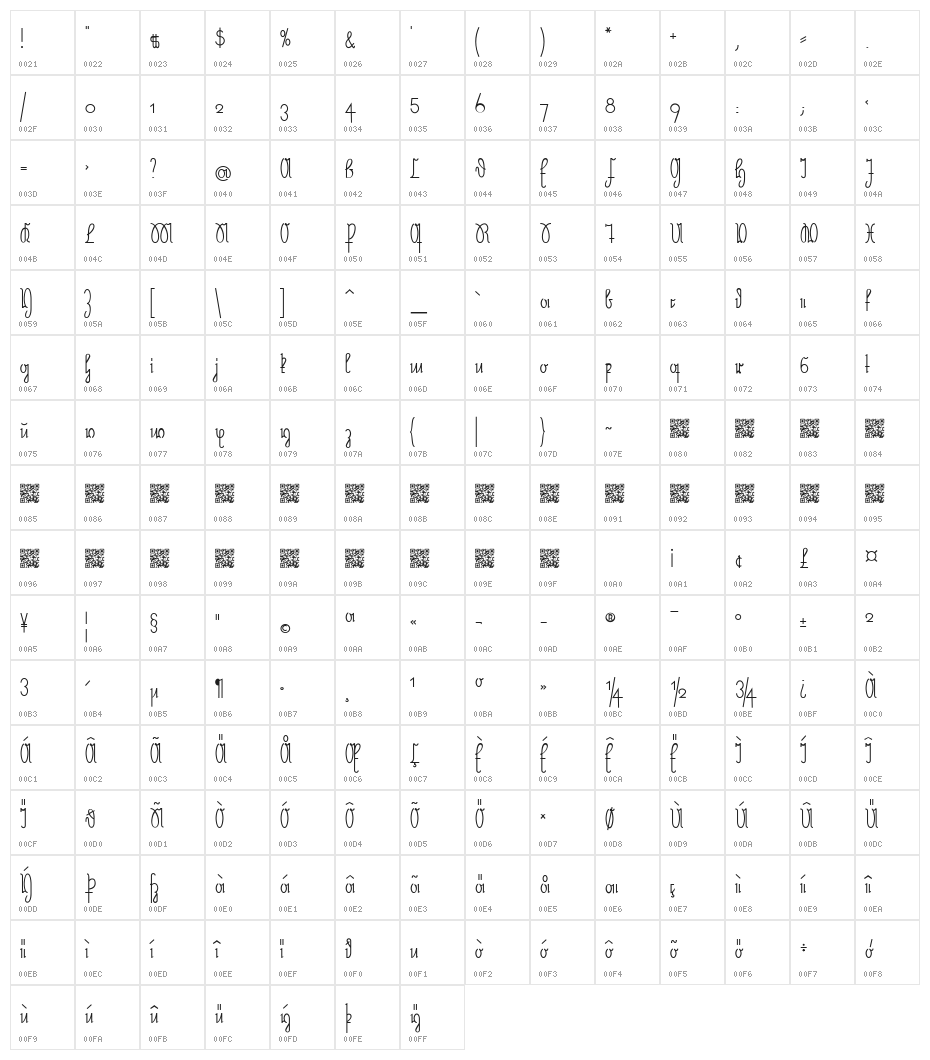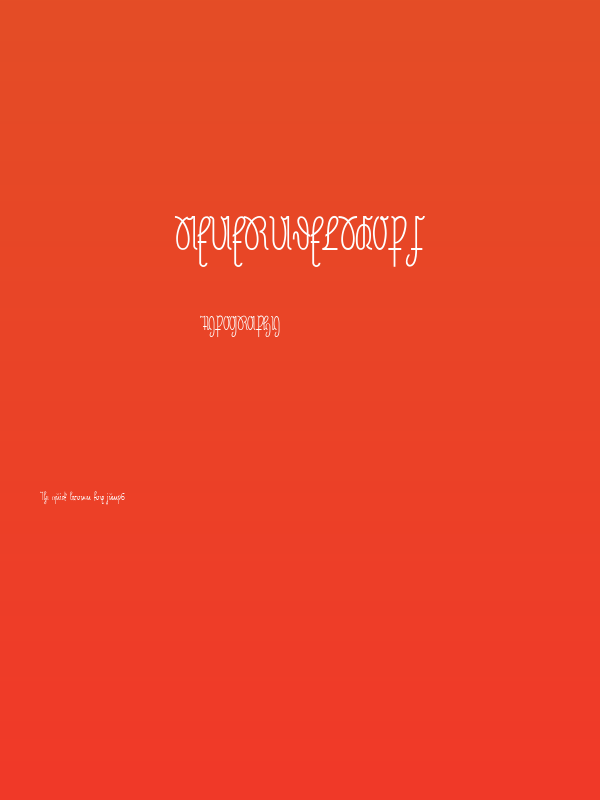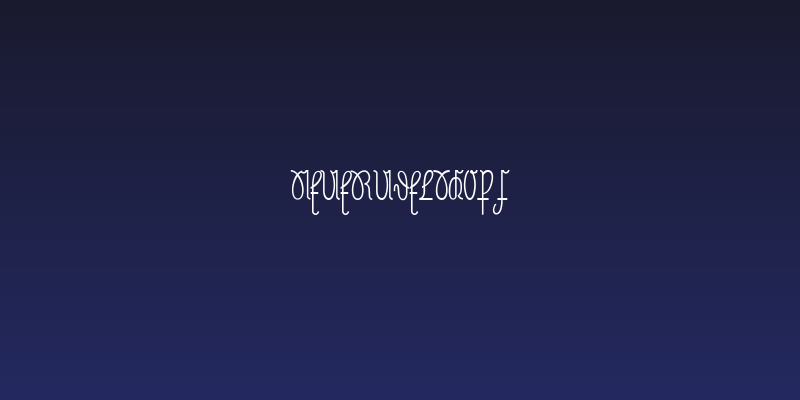
NeueRudelskopf Font
NeueRudelskopf Description
This font features a unique and decorative style with intricate curves and loops that give it a whimsical and artistic appearance. The uppercase letters are characterized by their tall, narrow forms with exaggerated serifs and flourishes, while the lowercase letters maintain a similar aesthetic with a slightly more compact design. The numerals are consistent with the overall style, featuring the same elegant curves and distinctive flair. Special characters are designed to match the font's ornate nature, making it suitable for creative and expressive projects. The font's overall appearance is both playful and sophisticated, making it ideal for use in designs that require a touch of elegance and creativity.
| Use Case | Headlines, Logos, Artistic designs |
| Proposed Projects | Ideal for invitations, artistic posters, branding, and creative projects that require a whimsical touch. |